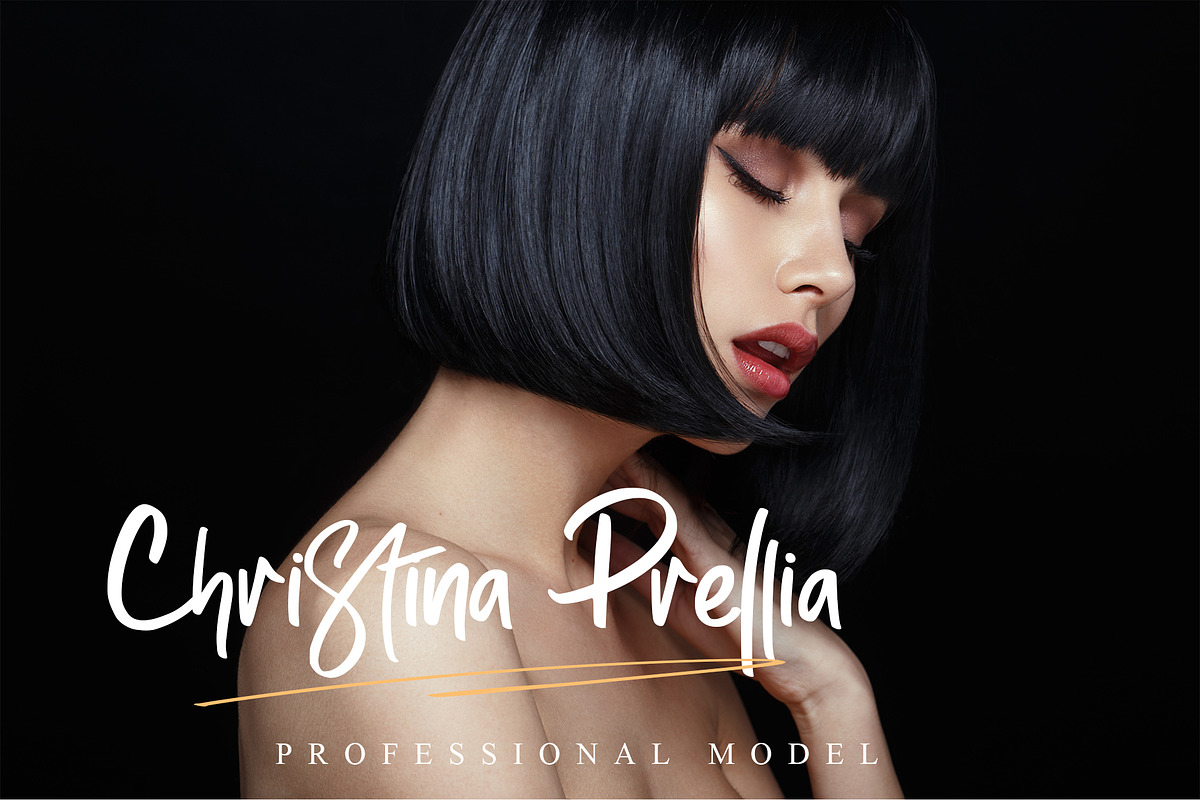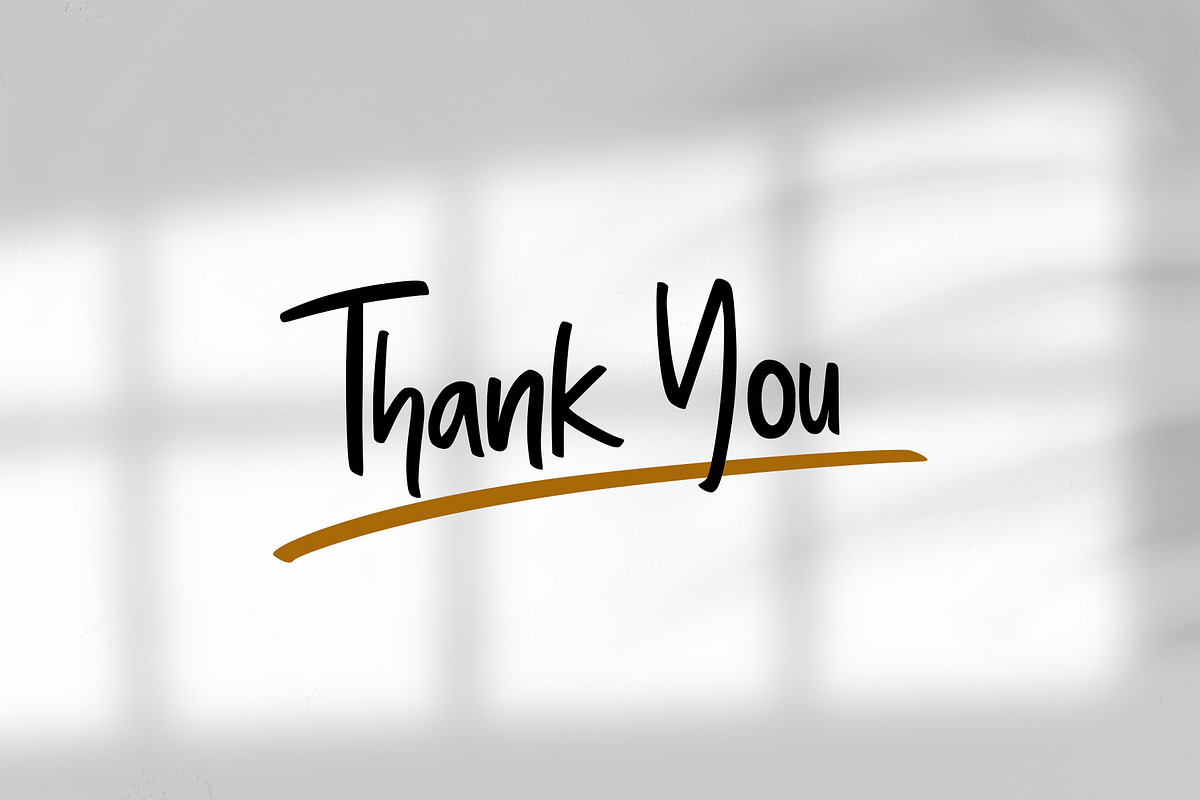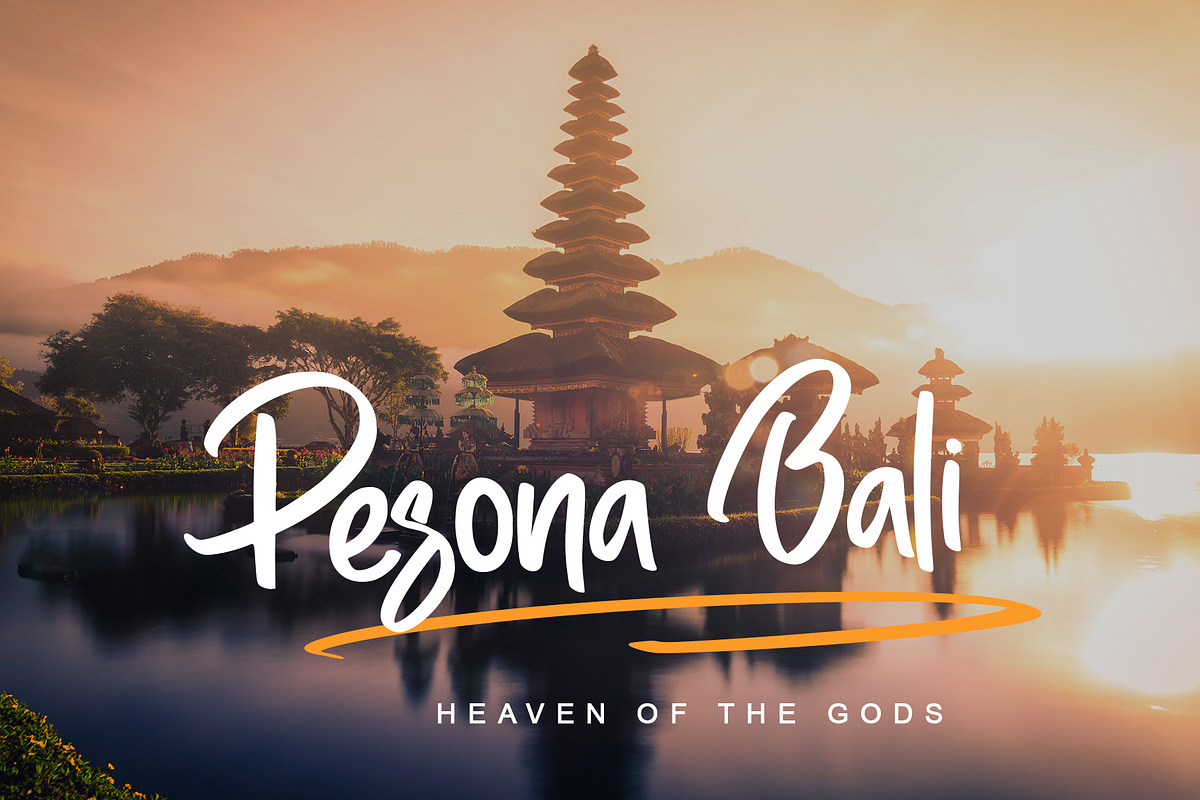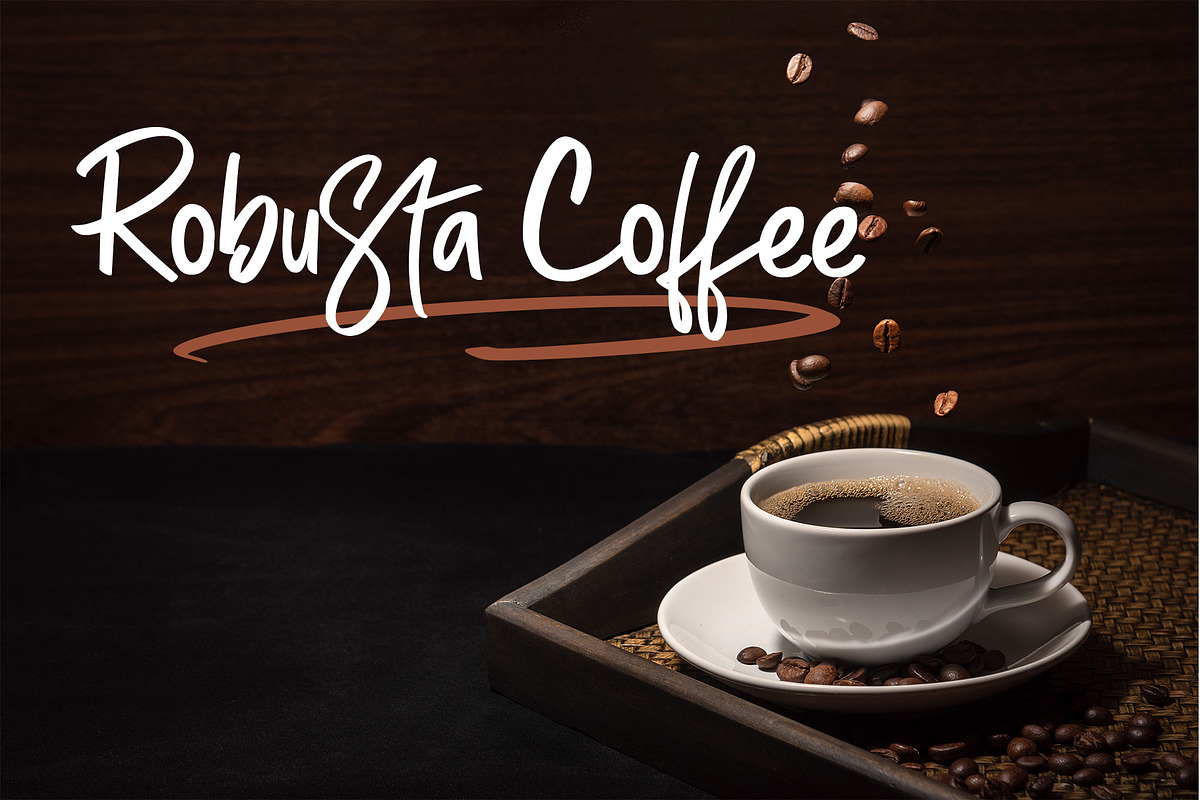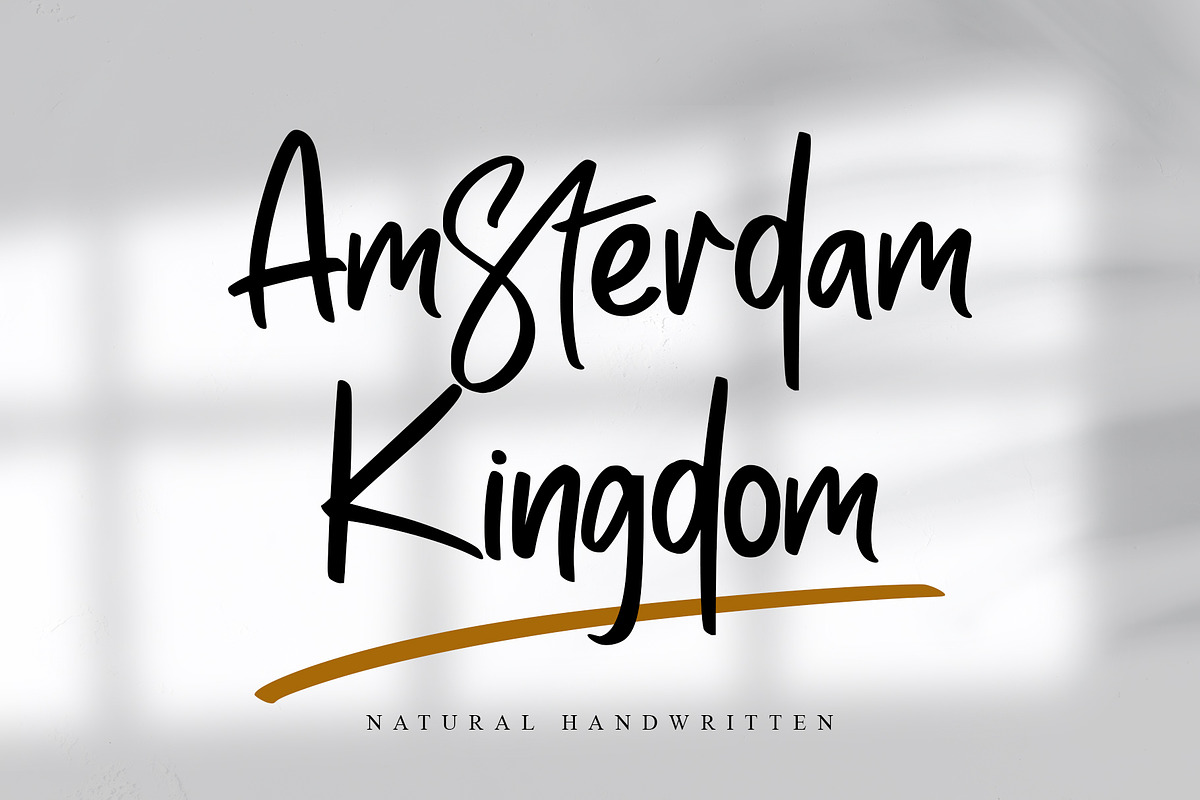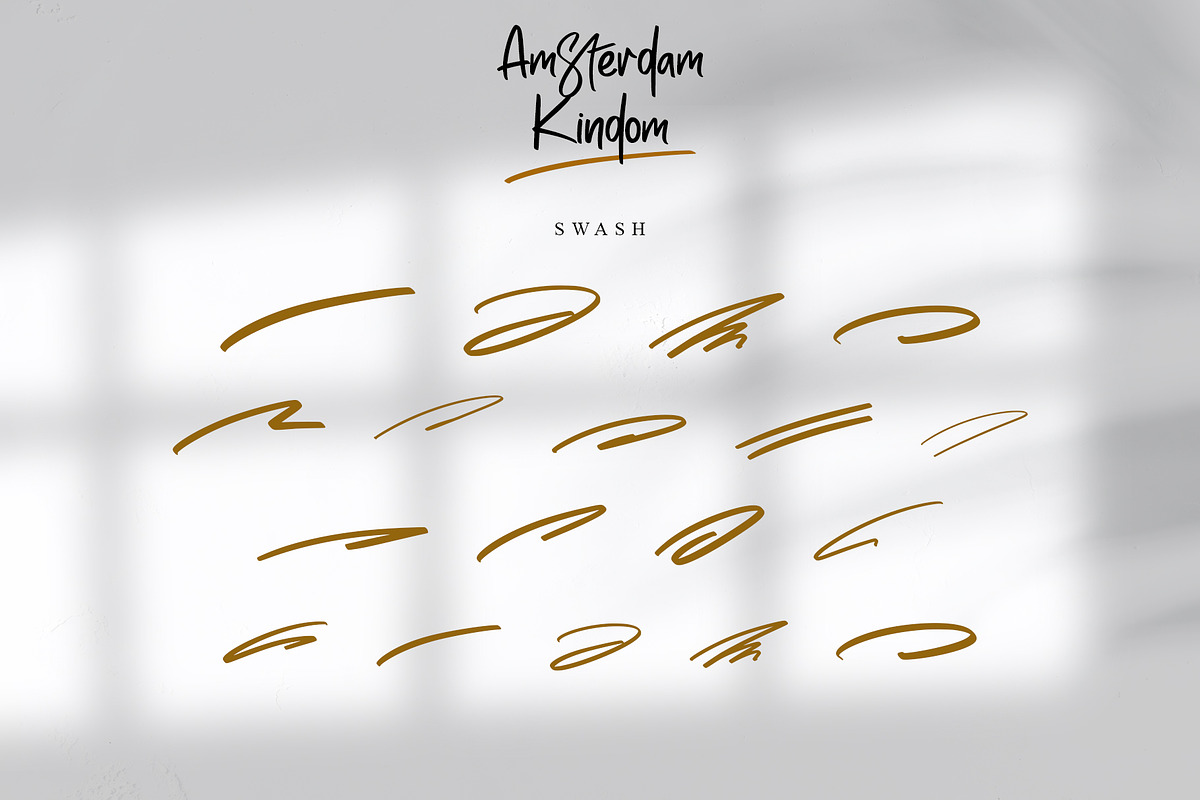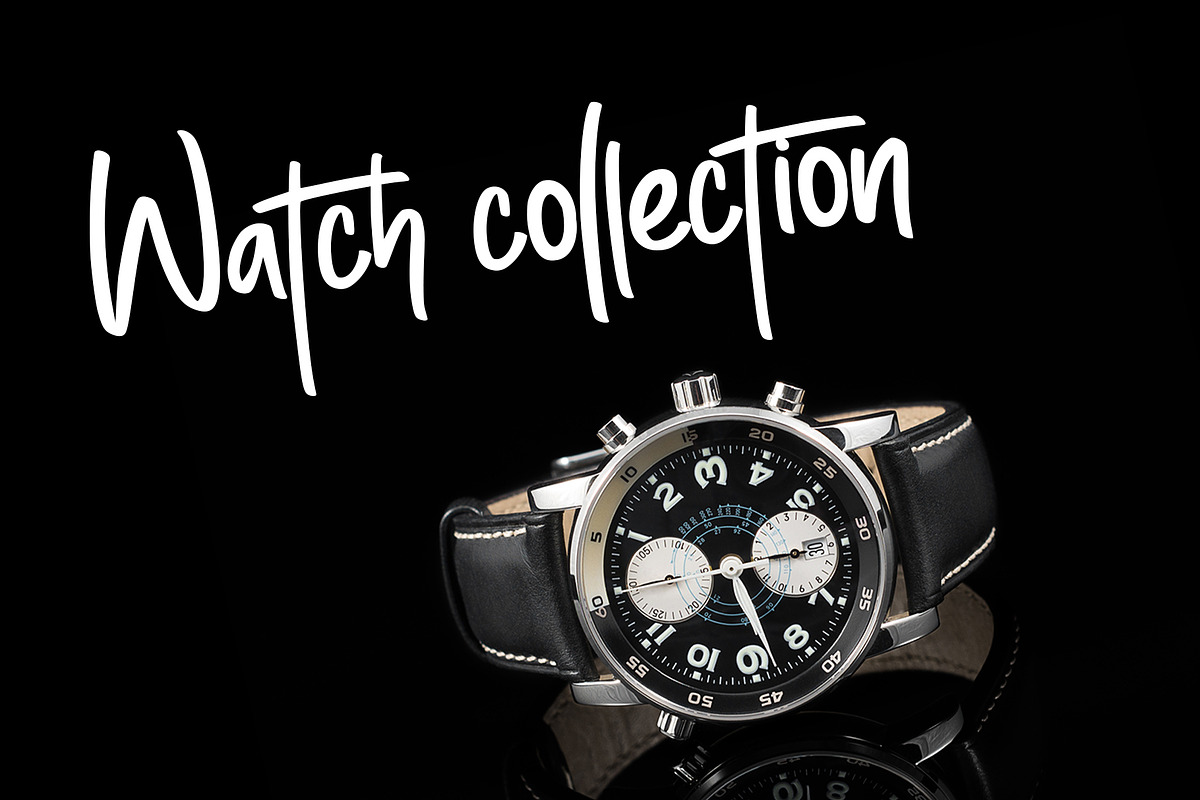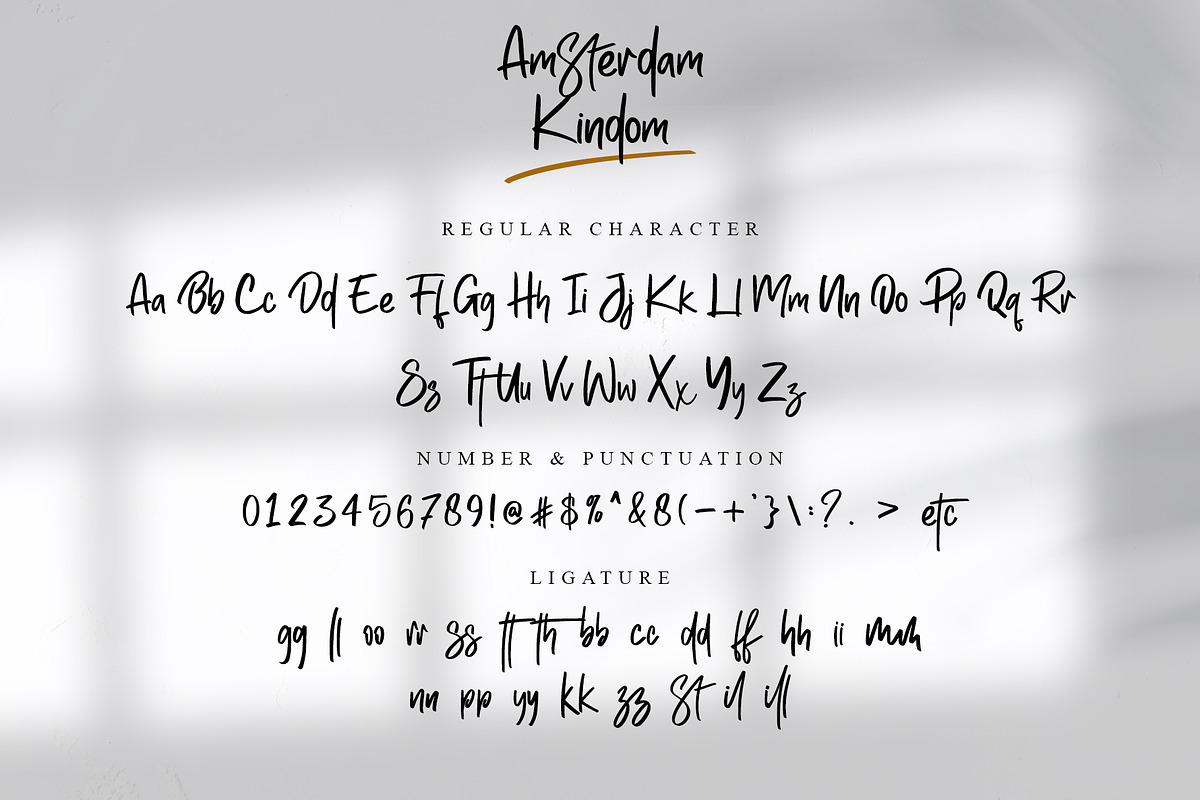
Amsterdam Kingdom
Amsterdam Kingdom is a beautiful original handwritten font with a unique feel and a stunning impact. It will add a unique spark to any design project that you wish to create! This font is PUA encoded which means you can access all of the amazing glyphs and ligatures with ease!
- Support multilingual; ä ö ü Ä Ö Ü ß ¿ ¡
- lowercase and uppercase letters